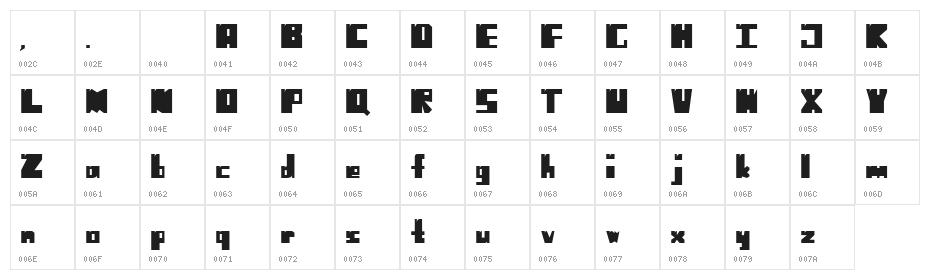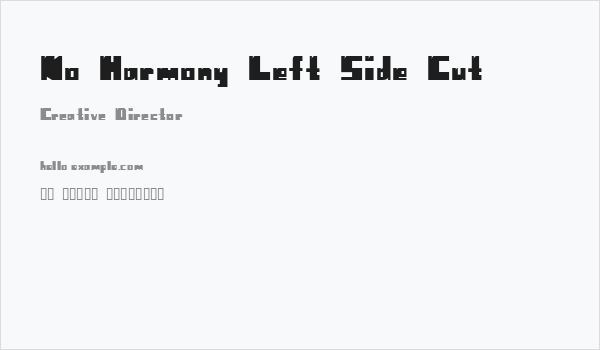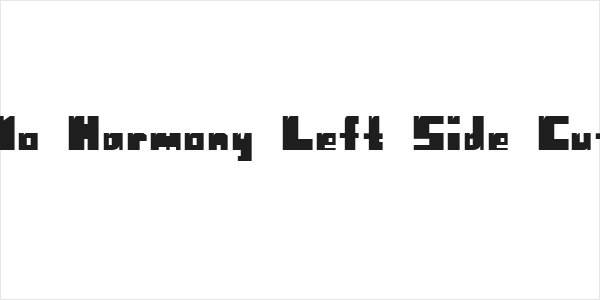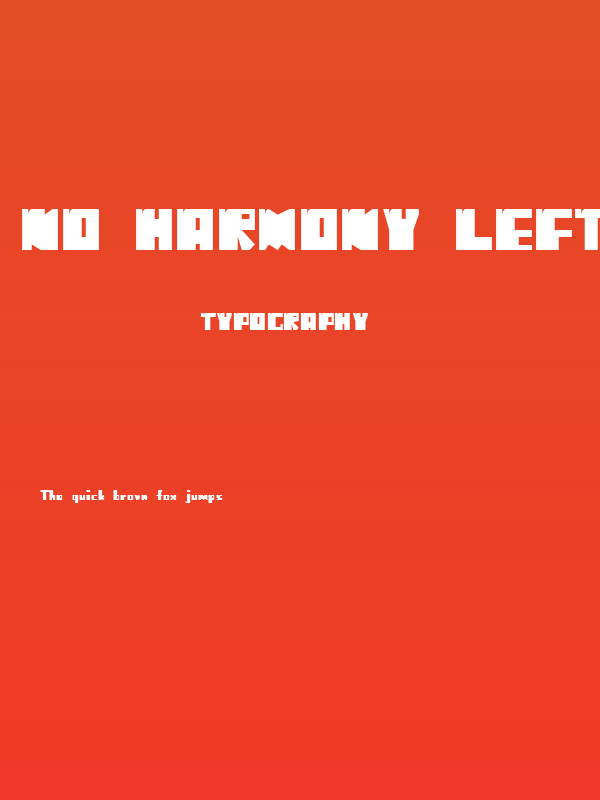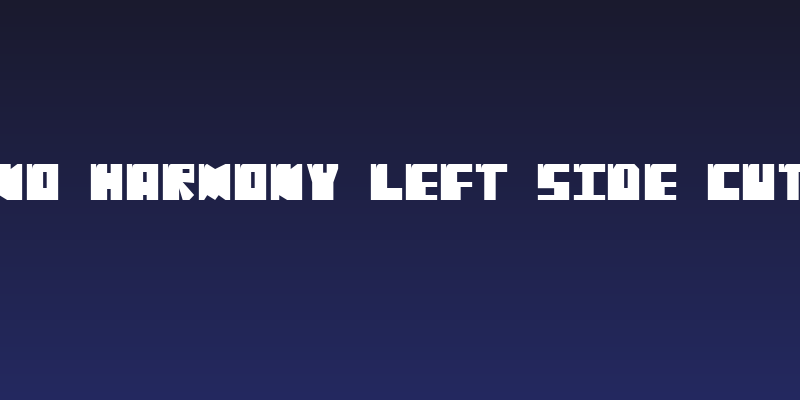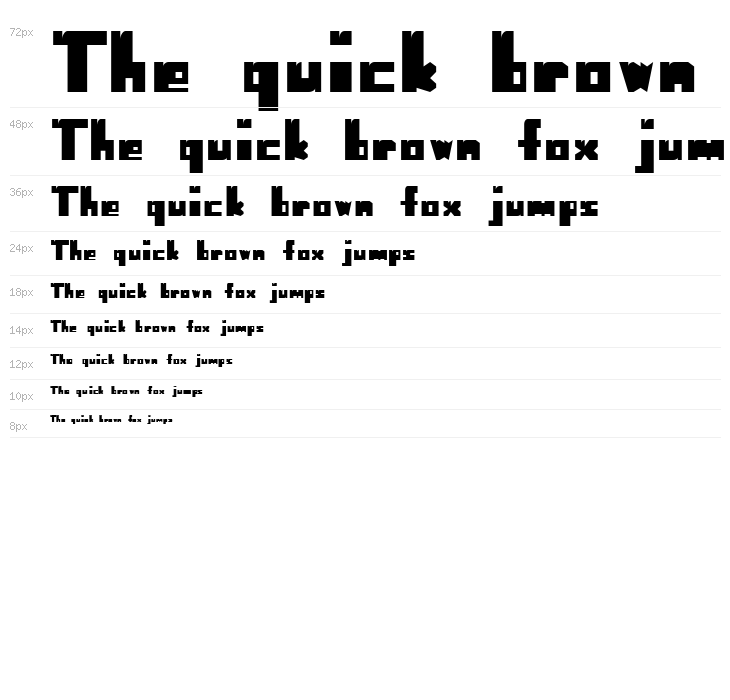
No Harmony Left Side Cut Font
No Harmony Left Side Cut Description
This font features a bold and geometric design with a distinctive cut on the left side of each character, creating a unique and edgy appearance. The uppercase letters are blocky and angular, while the lowercase letters maintain a consistent style with slightly softer edges. The numbers follow the same geometric pattern, ensuring uniformity across all characters. The special characters are designed to match the overall aesthetic, making this font suitable for projects that require a modern and unconventional look. Its striking design makes it ideal for attention-grabbing headlines or creative branding.
| Proposed Projects | Ideal for modern branding, edgy posters, and attention-grabbing headlines. |